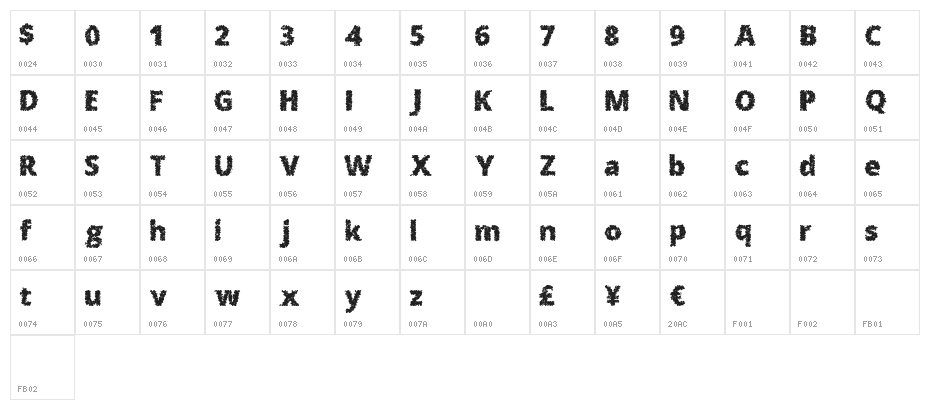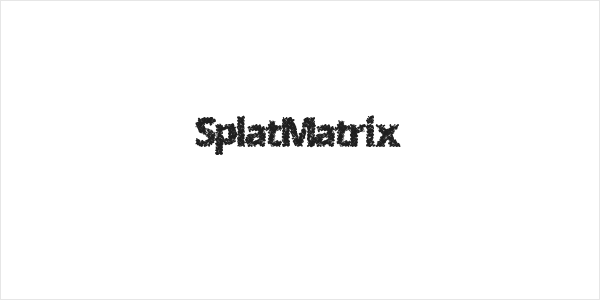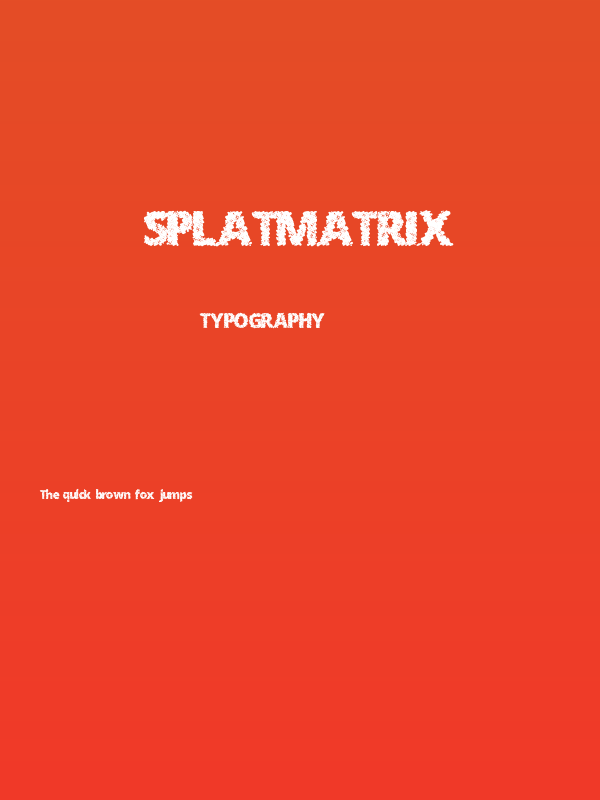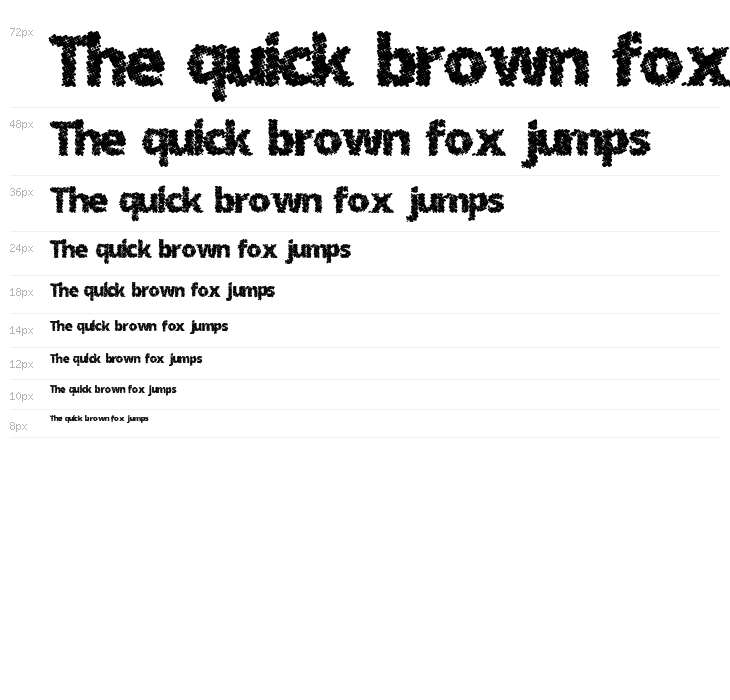
SplatMatrix Font
SplatMatrix Description
This font features a unique and playful design, characterized by its splatter-like texture that gives each character a dynamic and energetic appearance. The uppercase and lowercase letters maintain a consistent style, with rounded edges and a bold presence. The numbers and special characters follow the same design principles, ensuring a cohesive look across all elements. This font's distinctive style makes it stand out, offering a creative and artistic flair that is both eye-catching and memorable.
| Proposed Projects | Ideal for creative projects such as posters, album covers, and event invitations where a bold and artistic statement is desired. |